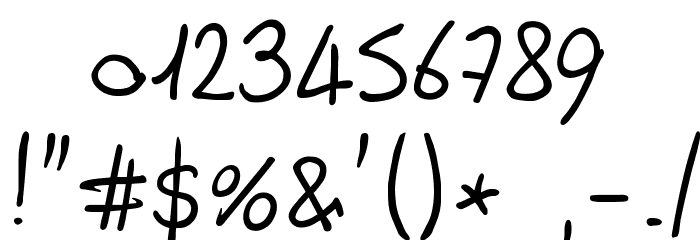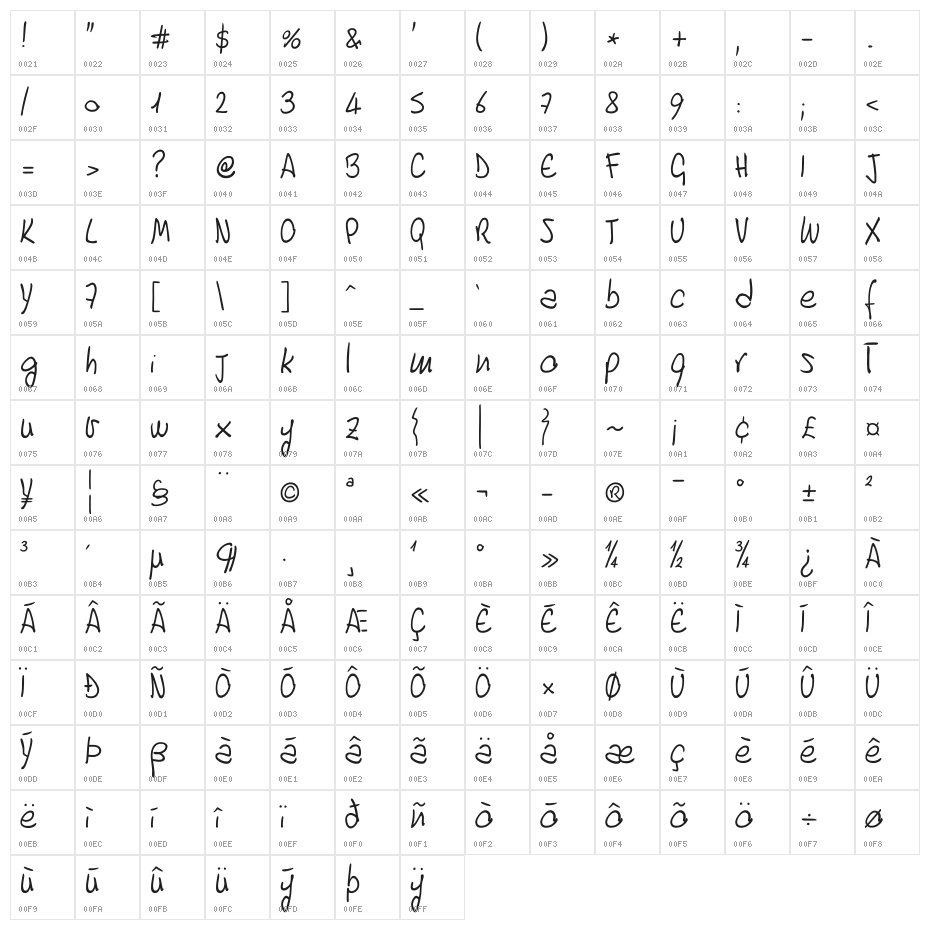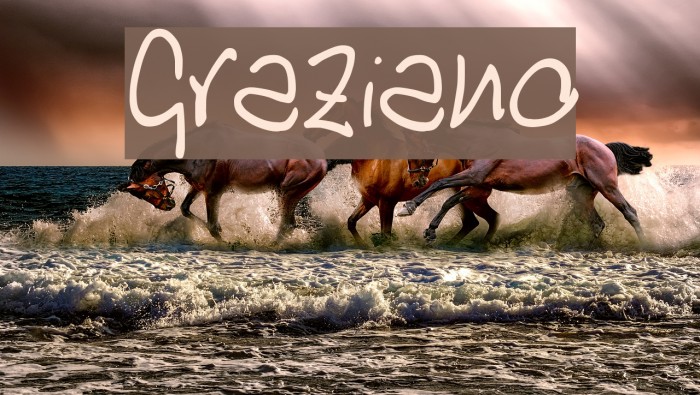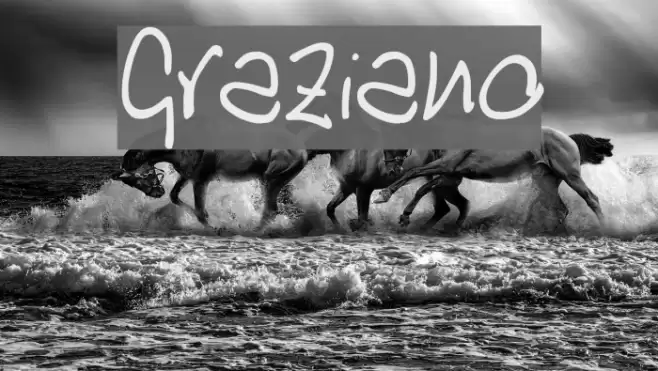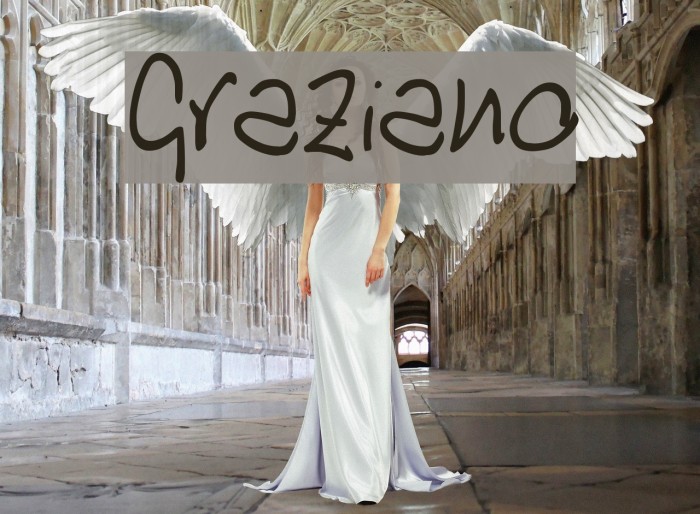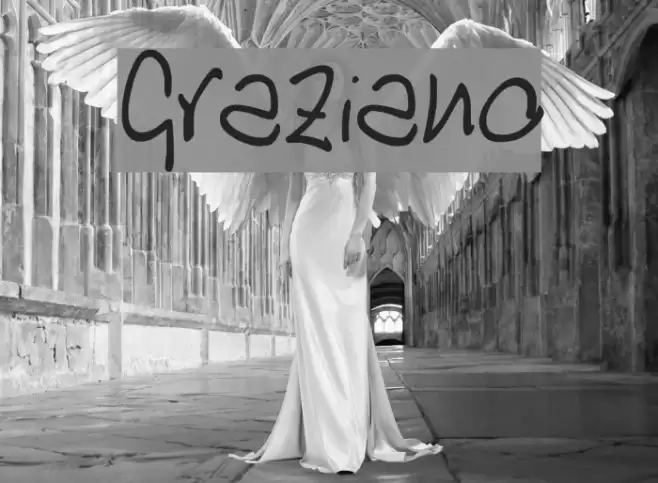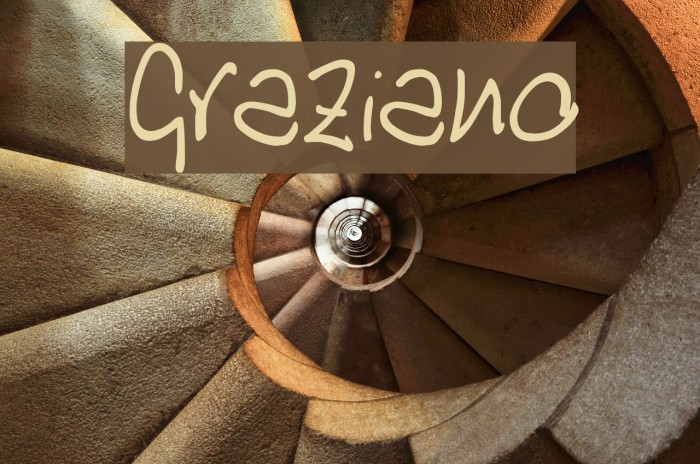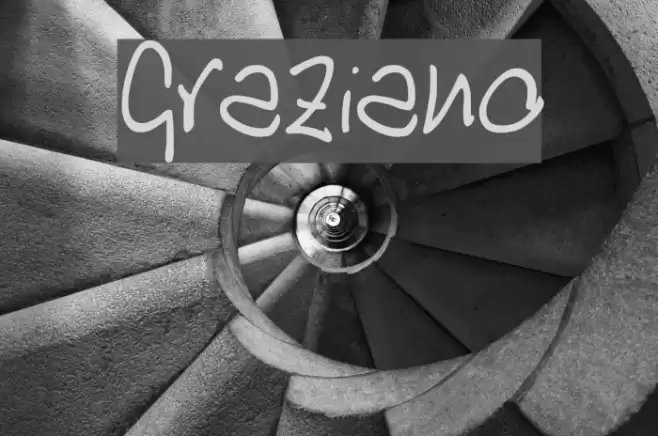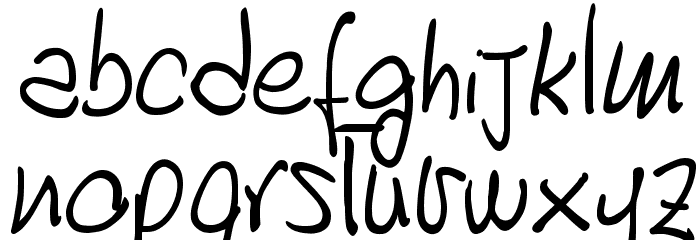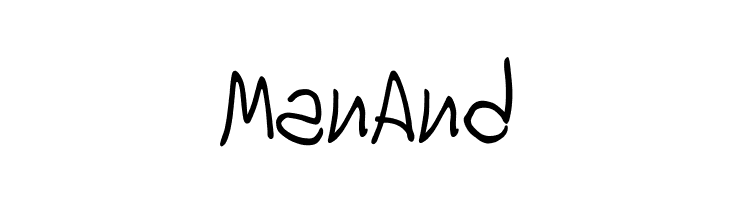
Graziano Font
Graziano Description
This font exudes a casual and playful handwritten style, characterized by its free-flowing and slightly irregular letterforms. The uppercase and lowercase letters maintain a consistent style, with rounded edges and a slight slant that adds to its informal appearance. The numerals and special characters follow the same aesthetic, ensuring a cohesive look across all text. The strokes are moderately thick, providing good readability while maintaining a relaxed vibe. This font is perfect for projects that require a personal touch, such as greeting cards, invitations, or informal branding.
| Use Case | Informal text, Personal projects, Branding |
| Proposed Projects | Greeting cards, invitations, informal branding, personal notes. |